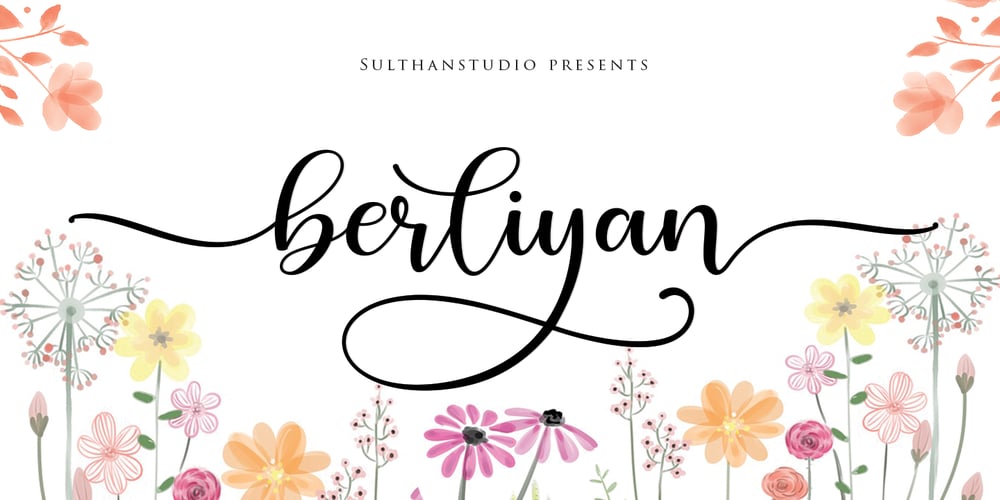
Berliyan Font Family was designed by Nasrullah and published by Sulthan Studio. Berliyan contains 1 styles and family package options. Berliyan Script is a beautiful font with OpenType features and includes start and end swashes, numbers, punctuation, alternatives, binders and also supports other languages. Berliyan Script is a beautiful and sweet script font with extraordinary nuances.